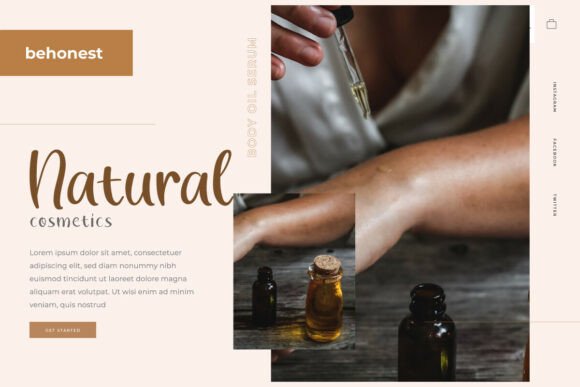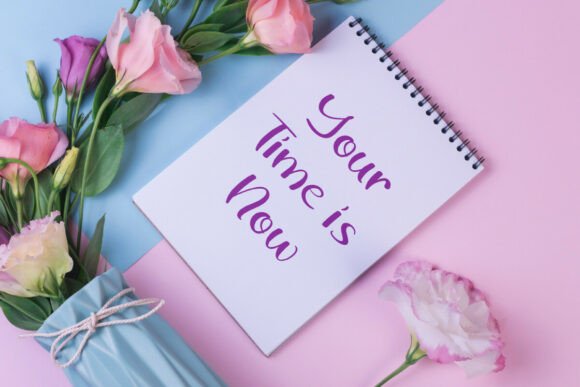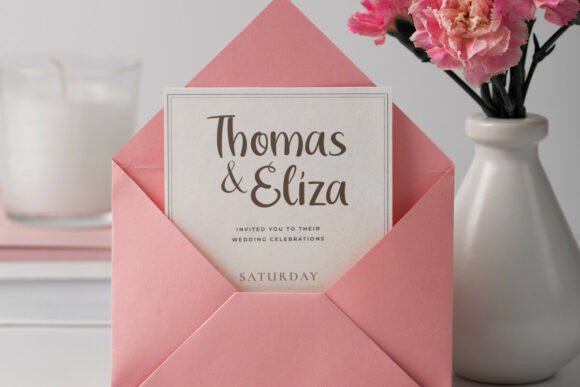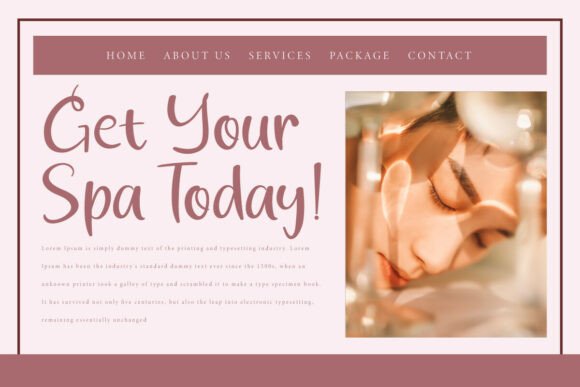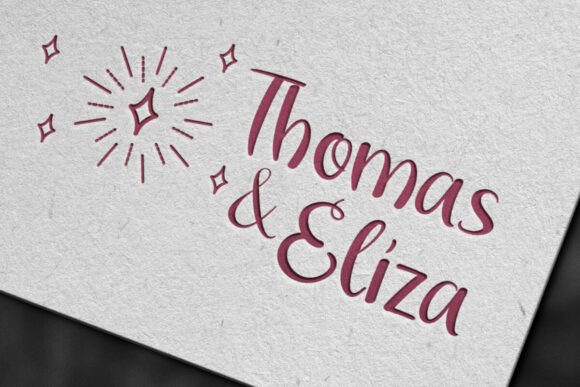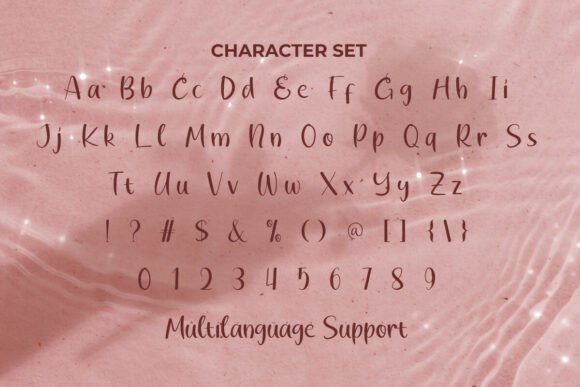
Introduction to Glowcurly Font
Glow Curly is a modern monoline script display font with a curly handwritten style.
Glow Curly is a monoline script display font that blends elegance with playful charm Its defining features are the delicate curls extending from select characters, giving it a magical, fairytale-like personality.